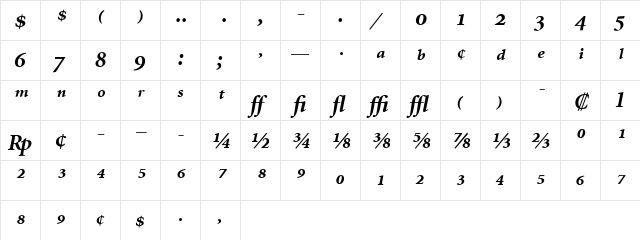
Minion Expert Bold Italic
Design Context for Minion Expert Bold Typeface
Minion Expert Bold takes a measured approach to typography — its balanced proportions and neutral character make it a reliable workhorse for both digital and print work. The slanted form adds forward momentum and visual energy. Its bold stroke weight gives it real presence on the page.
Pro Tip: Use Minion Expert Bold for emphasis, pull quotes, and subheadings where its slanted energy can add rhythm to the layout.